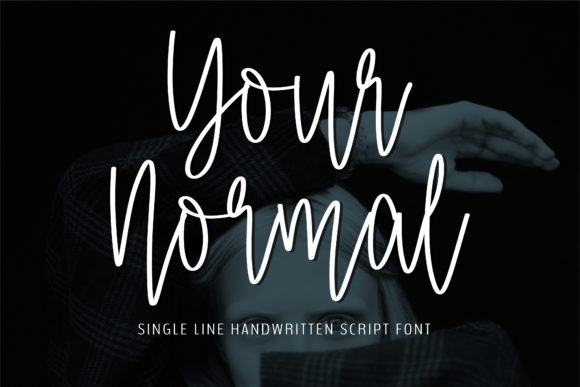
Welcome to the world of Your Normal Font, a captivating script font ready to dance its way onto your creative projects. A member of the esteemed BitongType foundry, Your Normal Font is an expression of delicate beauty and endless possibilities. With its naturally fluid strokes and charming imperfections, Your Normal Font adds a touch of authenticity and warmth to your designs. Its elegance and versatility make it a standout choice for crafting heartfelt messages, personalized invitations, whimsical logos, or adding a personal touch to your social media posts.
Dive into the Enchanting Realm of Your Normal Font
Imagine the joy of crafting personalized gifts for your loved ones, transforming ordinary objects into treasured keepsakes. Your Normal Font will infuse your designs with a unique flair, whether you're creating custom T-shirts, mugs, or wall art. Unleash your creativity and design one-of-a-kind cards and stationery that are sure to leave a lasting impression. The possibilities are endless, and Your Normal Font will be your trusty companion every step of the way.
Endless Compatibility and Craft-Friendly Design
Your Normal Font is a true friend to crafters, seamlessly compatible with various cutting machines, including the beloved Cricut. Its effortless compatibility makes it a breeze to bring your digital designs to life, transforming them into tangible works of art. Whether you're working with iron-on vinyl, adhesive vinyl, or paper, Your Normal Font will elevate your creations with its exceptional clarity and precision.
Experience the Timeless Beauty of Script
With its timeless script style, Your Normal Font evokes a sense of nostalgia and romance. Its graceful lines and elegant curves add a touch of sophistication to any project. Imagine the allure of vintage posters, the charm of handwritten love letters, or the timeless beauty of wedding invitations adorned with Your Normal Font. Its timeless appeal transcends trends, making it a font that will continue to captivate audiences for years to come.
A Font for All Occasions and Styles
Your Normal Font is not just a font; it's a versatile chameleon that effortlessly adapts to a myriad of design aesthetics. Whether you're drawn to the whimsical charm of boho style, the sleek lines of modern design, or the rustic appeal of farmhouse chic, Your Normal Font seamlessly blends in and enhances your vision. Its adaptability makes it a must-have for any designer's toolkit.